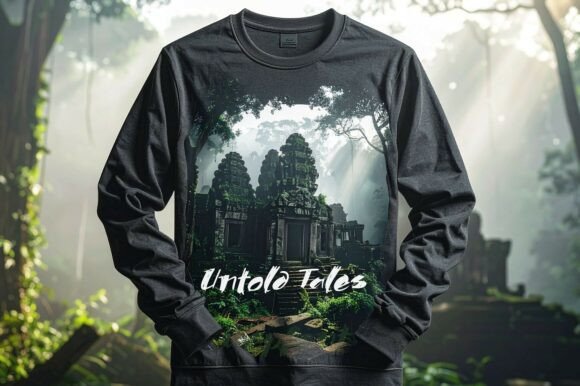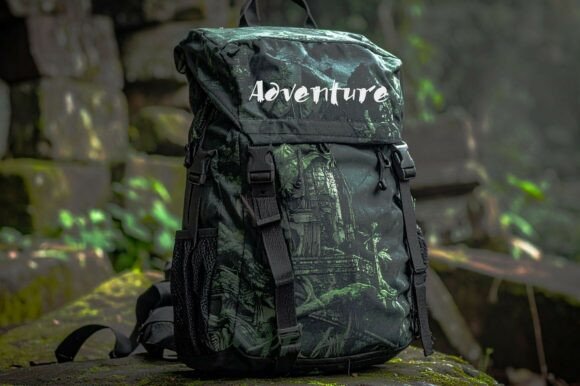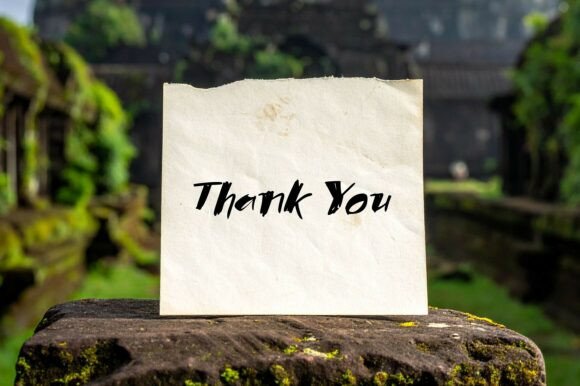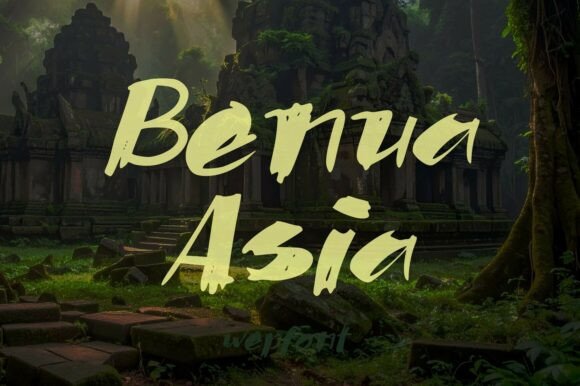
Unleash the Vibrant Spirit of Benua Asia Font: A Journey of Authenticity and Adventure
Imagine yourself immersed in the lively aura of a distant land, where the dynamic strokes of a brush dance across the page, telling tales of untamed landscapes and cultural richness. Welcome to the world of Benua Asia, a vibrant brush script typeface that embodies the essence of hand-painted elegance. This robust font is your gateway to creating captivating narratives that evoke the thrill of exploration, the sophistication of artistic mystery, and the authenticity of a handmade charm.
The Essence of Benua Asia
Benua Asia is more than just a font – it’s an experience. Inspired by the raw beauty of hand-painted strokes, this typeface encapsulates the true spirit of adventure, transporting your audience to a world of cultural celebrations, outdoor escapades, and artistic expression. With Benua Asia, you have the perfect tool to invigorate your travel stories, outdoor product labeling, music merchandise, or any platform aiming to convey a passionate, natural, and zealous narrative.
Authenticity and Handmade Charm
What sets Benua Asia apart is its strong hint of handmade charm. This typeface exudes genuineness, delivering a distinguishable milestone that resonates with authenticity. The imperfections and uniqueness of hand-painted strokes shine through, making each letter a masterpiece of artistic expression. By infusing your message with Benua Asia, you’re not just conveying information – you’re sharing a piece of yourself, a fragment of your soul.
Benua Asia is a versatile font, designed to adapt to various creative projects. Whether you’re a designer, crafters, or artist, this typeface offers endless possibilities for:
- Travel stories: Transport your readers to exotic destinations, evoking the thrill of exploration and cultural immersion.
- Outdoor product labeling: Add a touch of adventure to your outdoor gear, making it stand out in a crowded market.
- Cultural celebrations: Honor cultural heritage with a font that echoes the vibrancy of traditional art.
- Music merchandise: Give your music a unique voice, resonating with the passion and energy of Benua Asia.
Why Choose Benua Asia?
In a world where digital communication dominates, Benua Asia offers a refreshing respite. This font:
- Conveys authenticity and genuineness, essential for building trust with your audience.
- Evokes emotions, transporting your readers to a world of adventure and artistic expression.
- Provides a unique voice, distinguishing your brand or message from the crowd.
Embracing the Soul of Benua Asia
Benua Asia is more than just a font – it’s a journey. By embracing this vibrant brush script typeface, you’re infusing your message with the essence of hand-painted elegance. You’re inviting your audience to experience the thrill of exploration, the sophistication of artistic mystery, and the authenticity of a handmade charm.
Get Ready to Create Unforgettable Experiences
Benua Asia Font is more than just a design element – it’s a gateway to unforgettable experiences. With its dynamic strokes, handmade charm, and authentic vibe, this typeface has the power to:
- Capture attention and spark imagination.
- Evoke emotions and create a lasting connection with your audience.
- Elevate your brand or message, making it stand out in a crowded market.